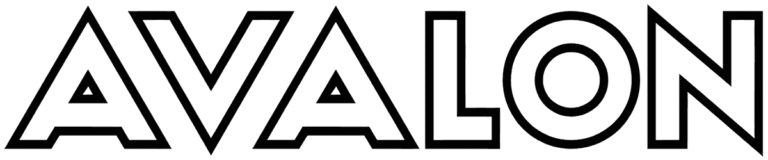
Brand New Retro Font
Never skip out on this typography design chance that is achievable thanks to this Brand New, Retro, groovy font that will be admired by all onlookers.
No need to worry, it’s lowercase missing never causes trouble, also its assertive, chunky letters in two different styles will relieve it in highlighting many writing projects; stickers, headlines, logotype, book covers, product packaging, and anything else through its powerful retro effects. Desire more? Go to RB and scroll up more.